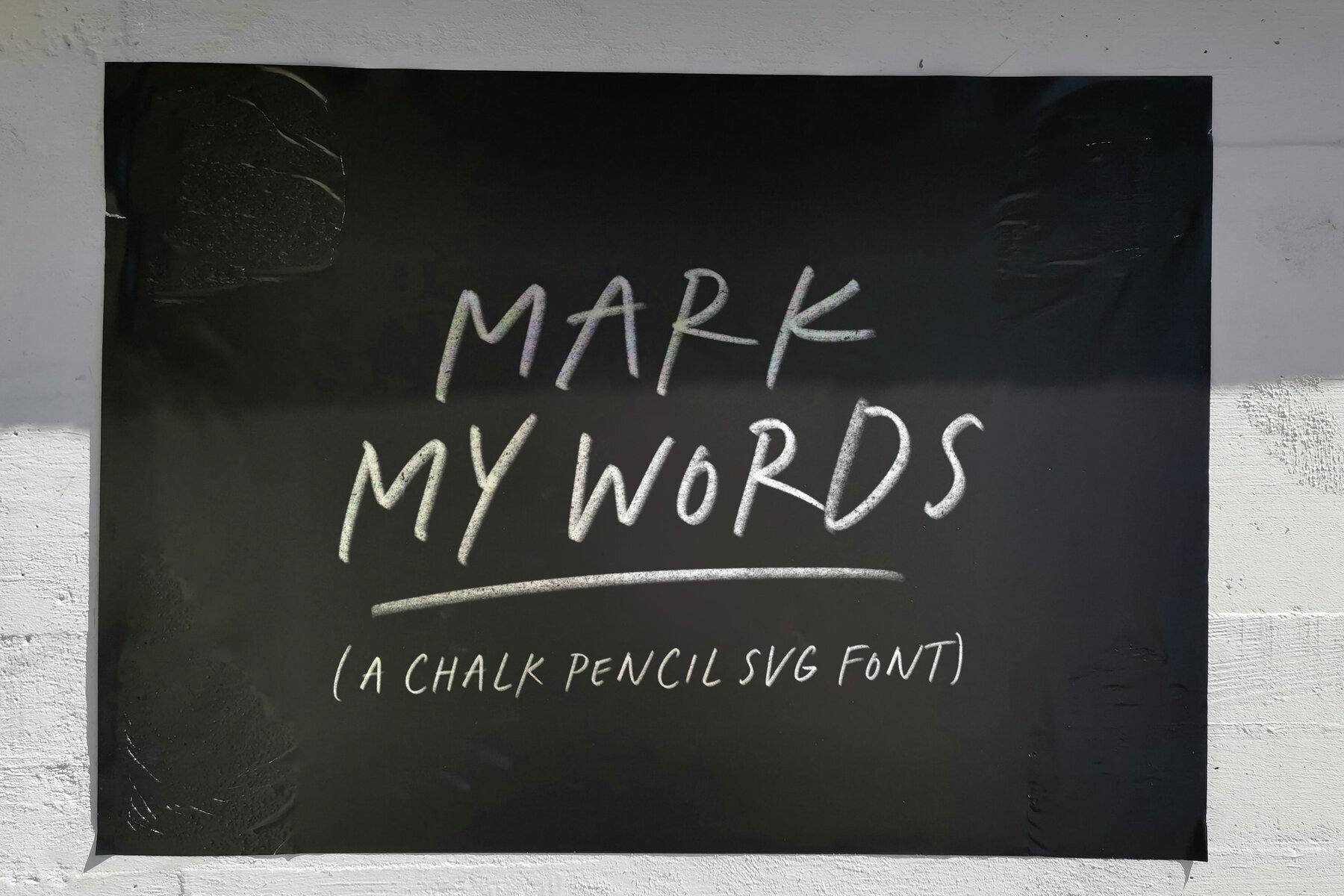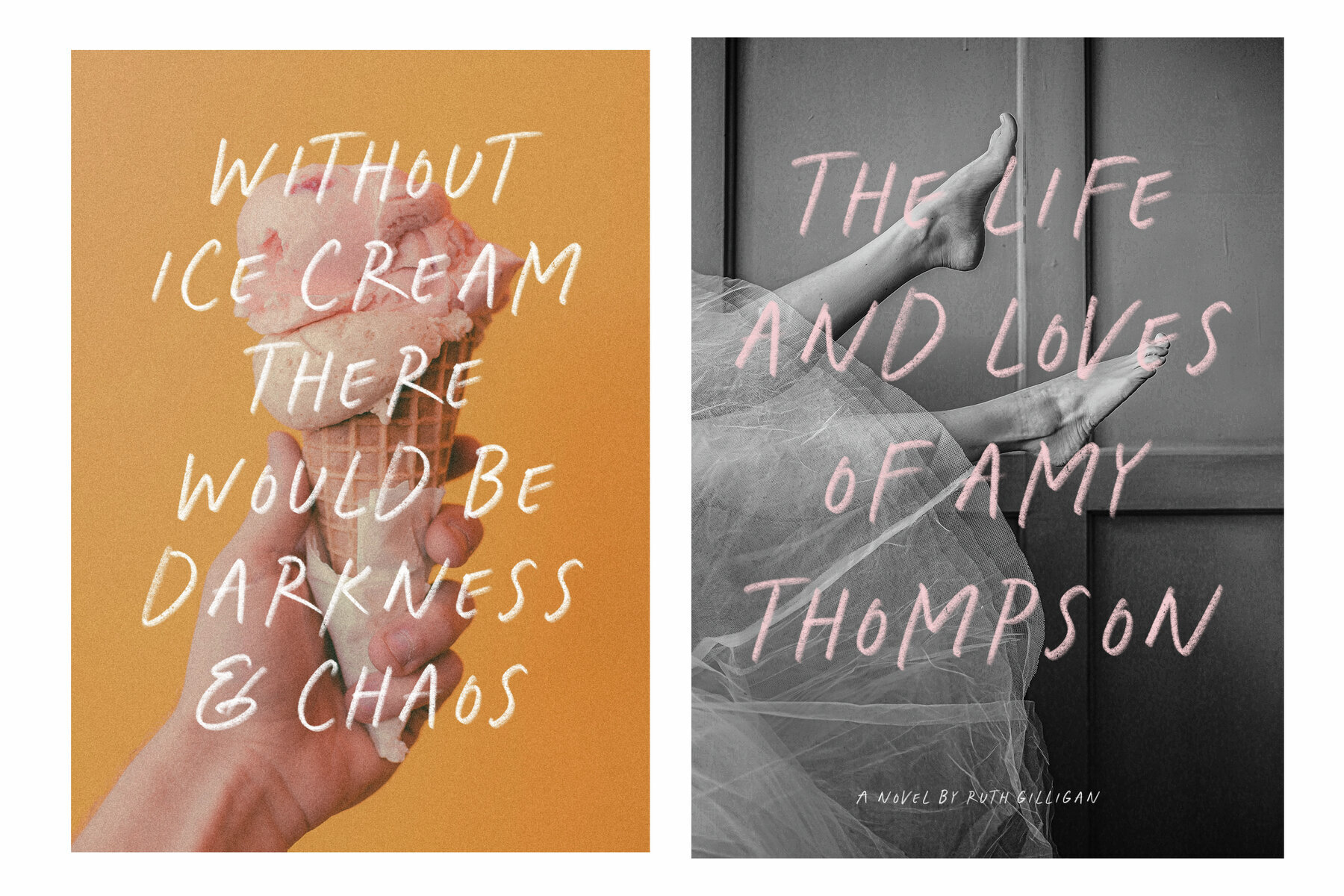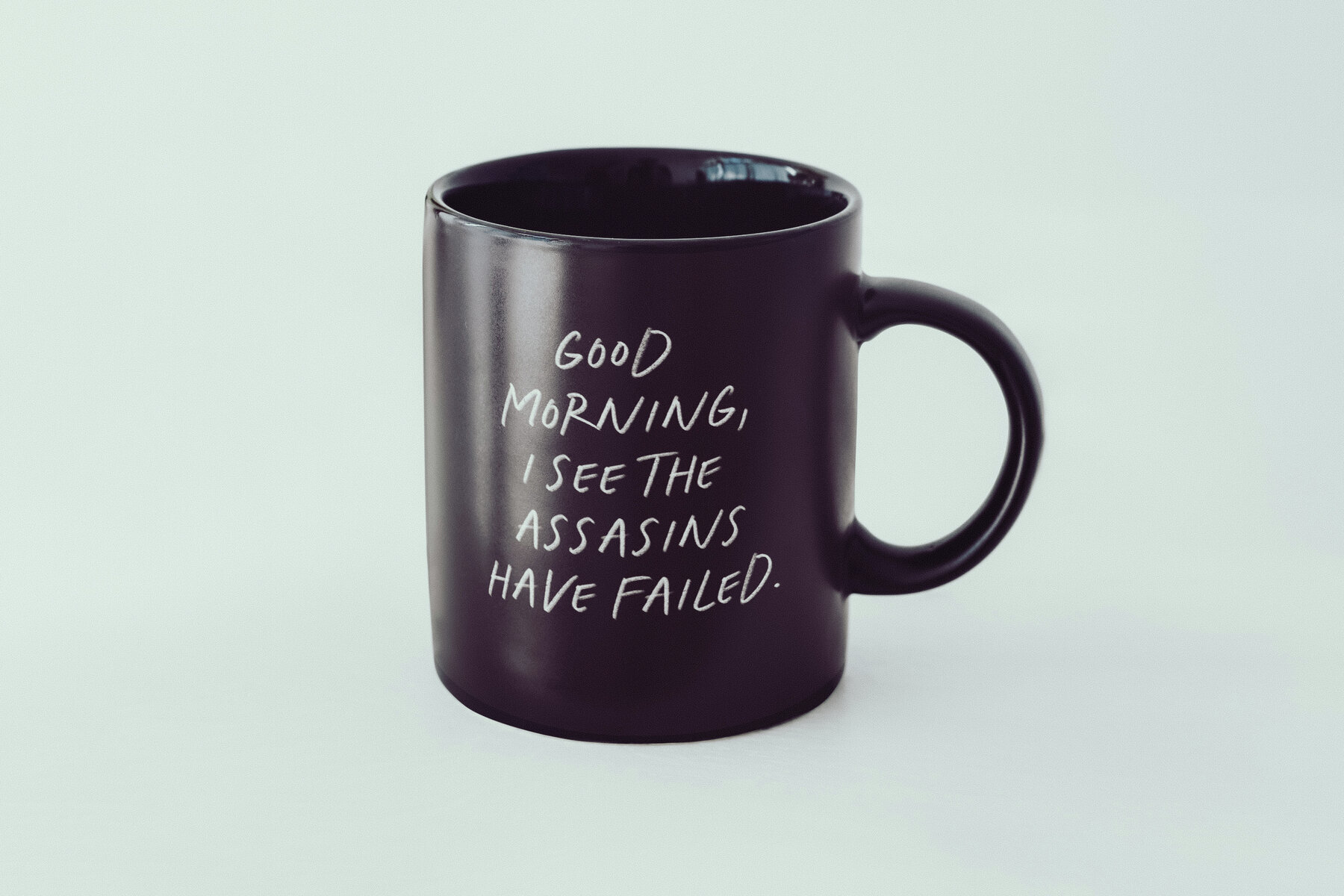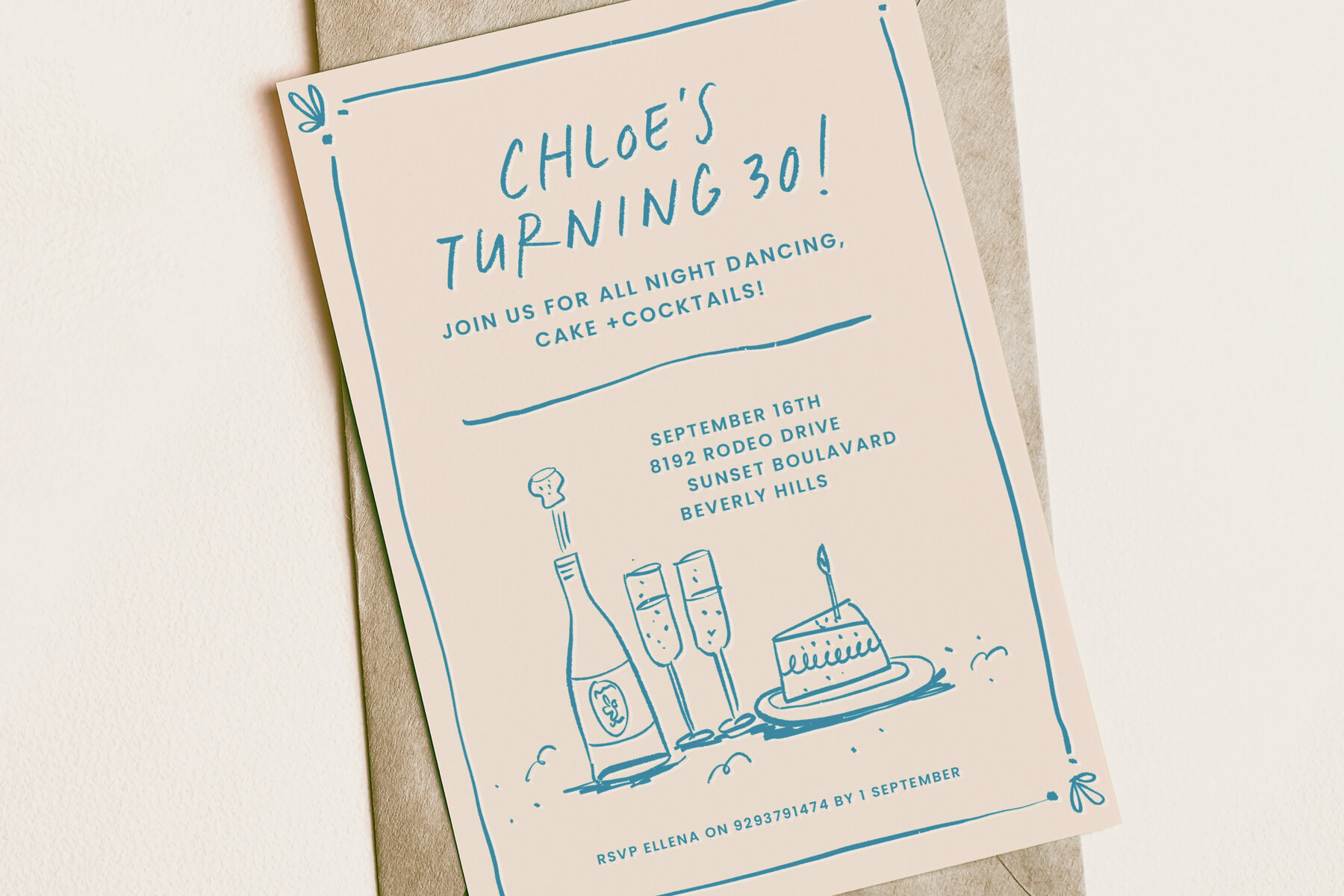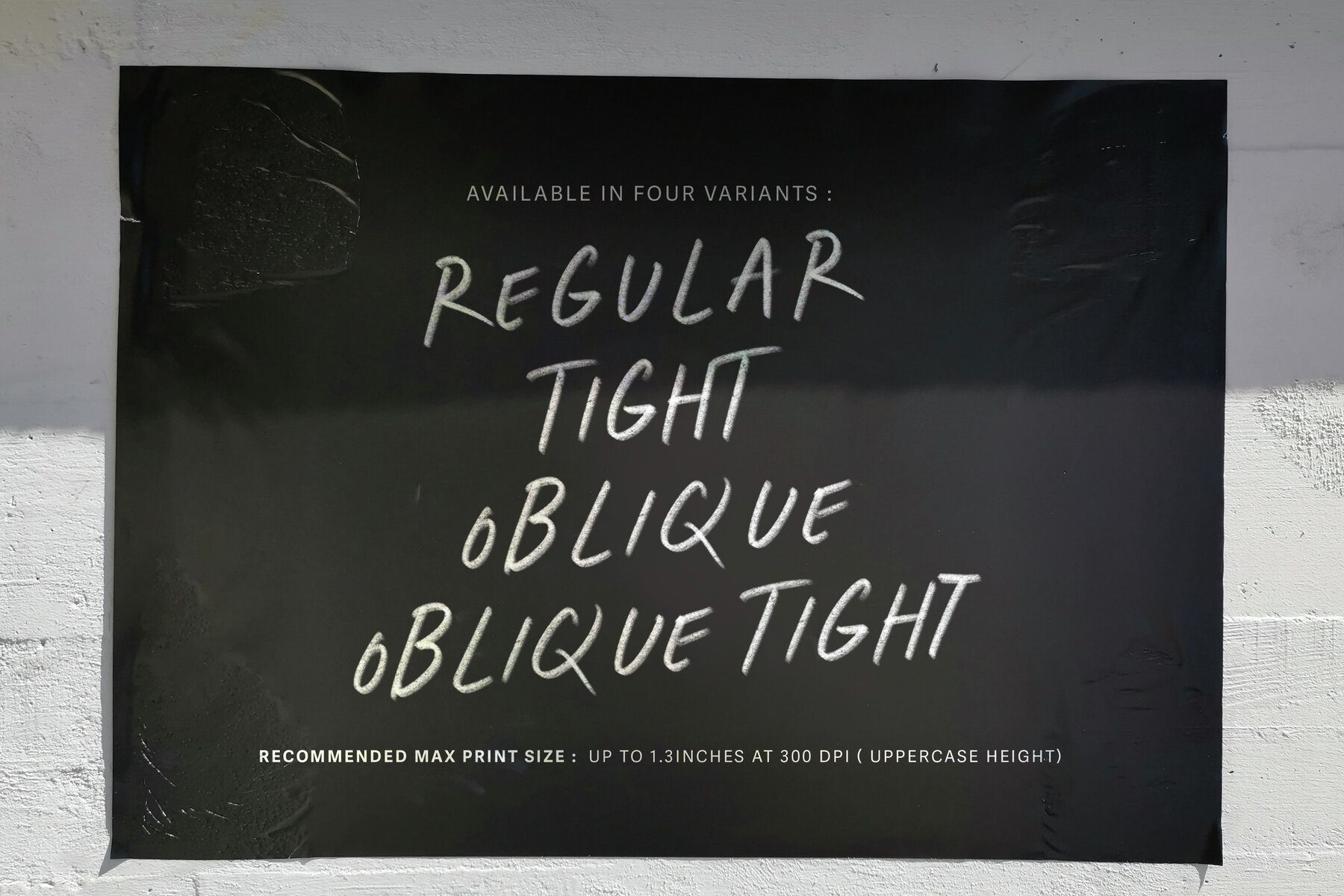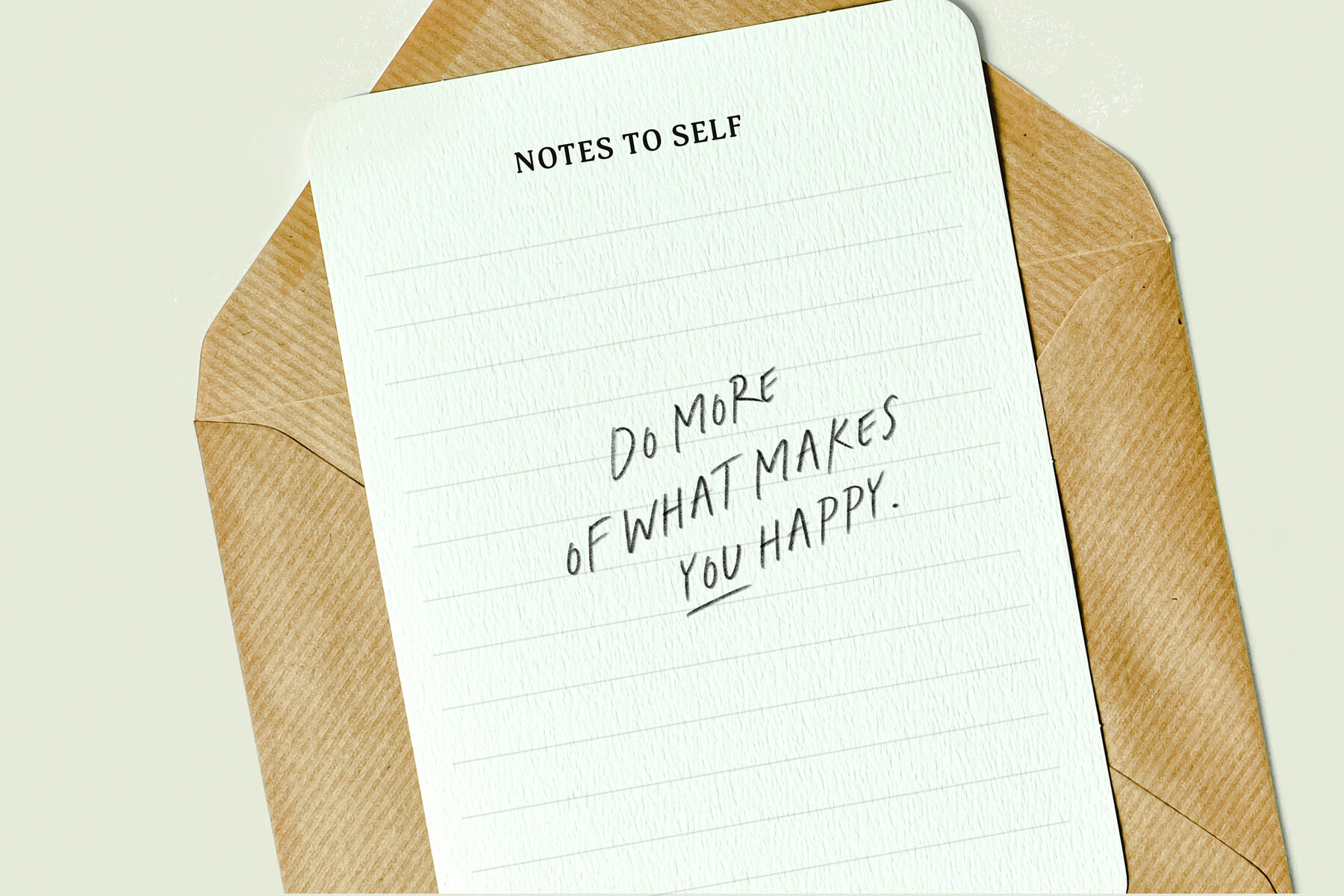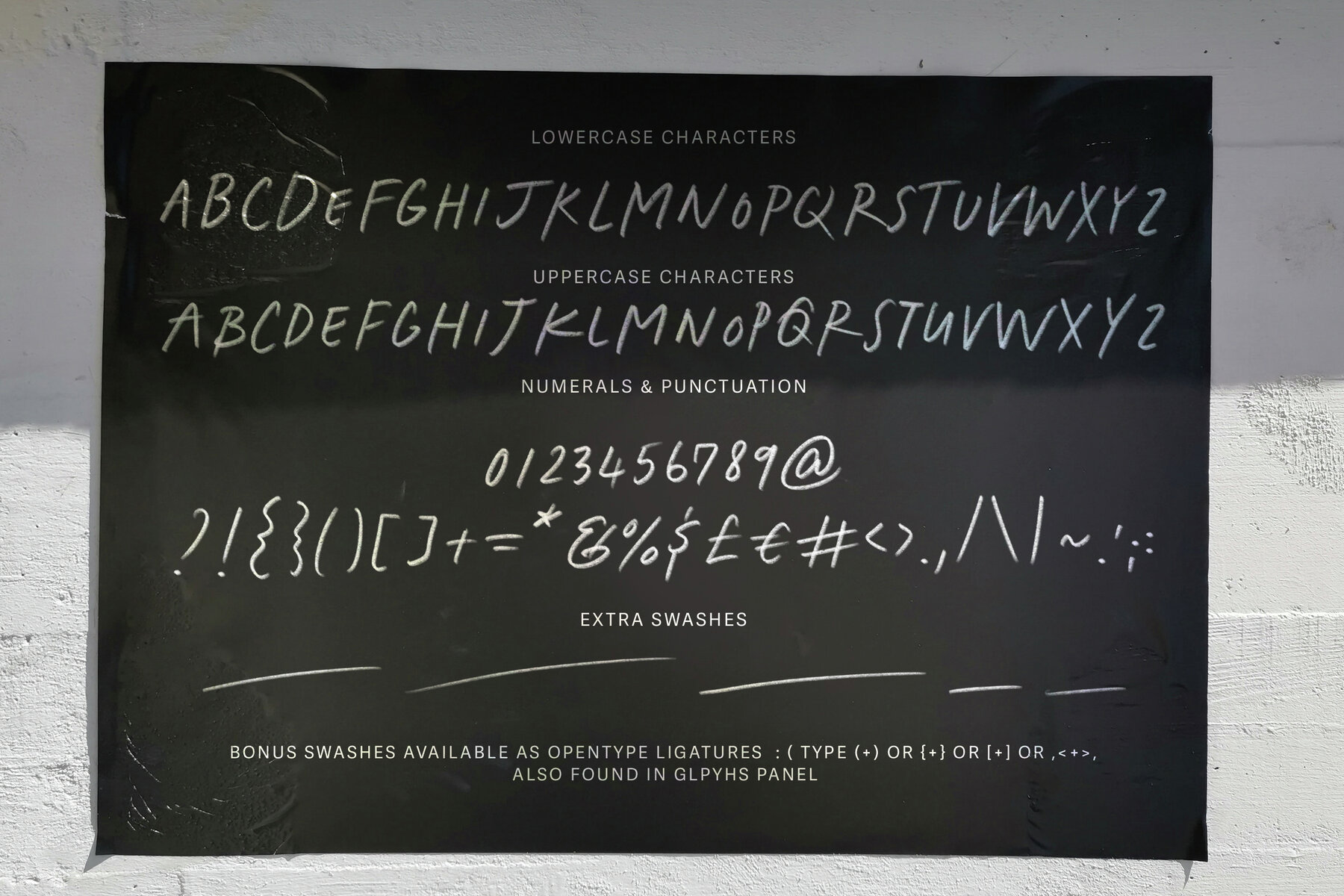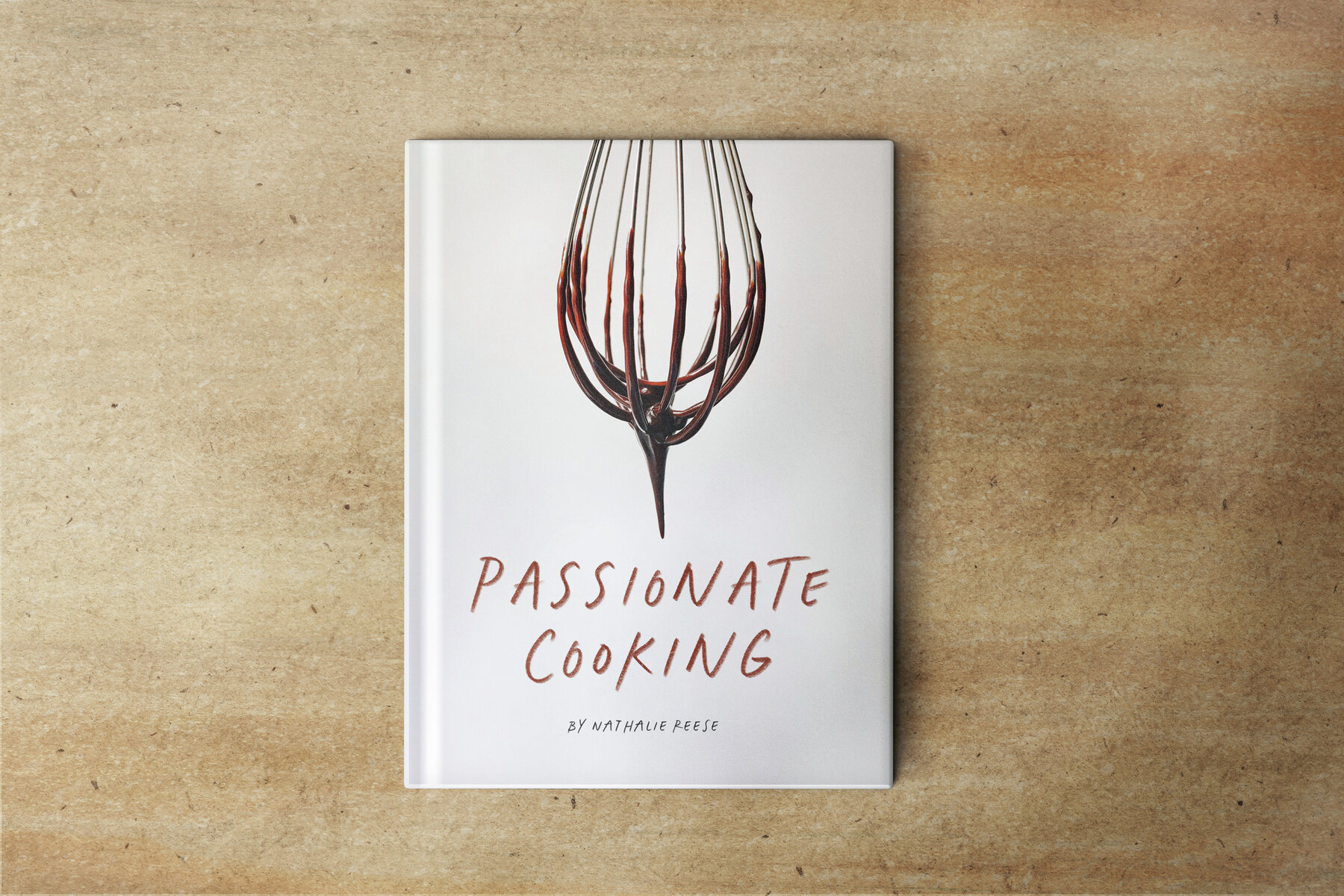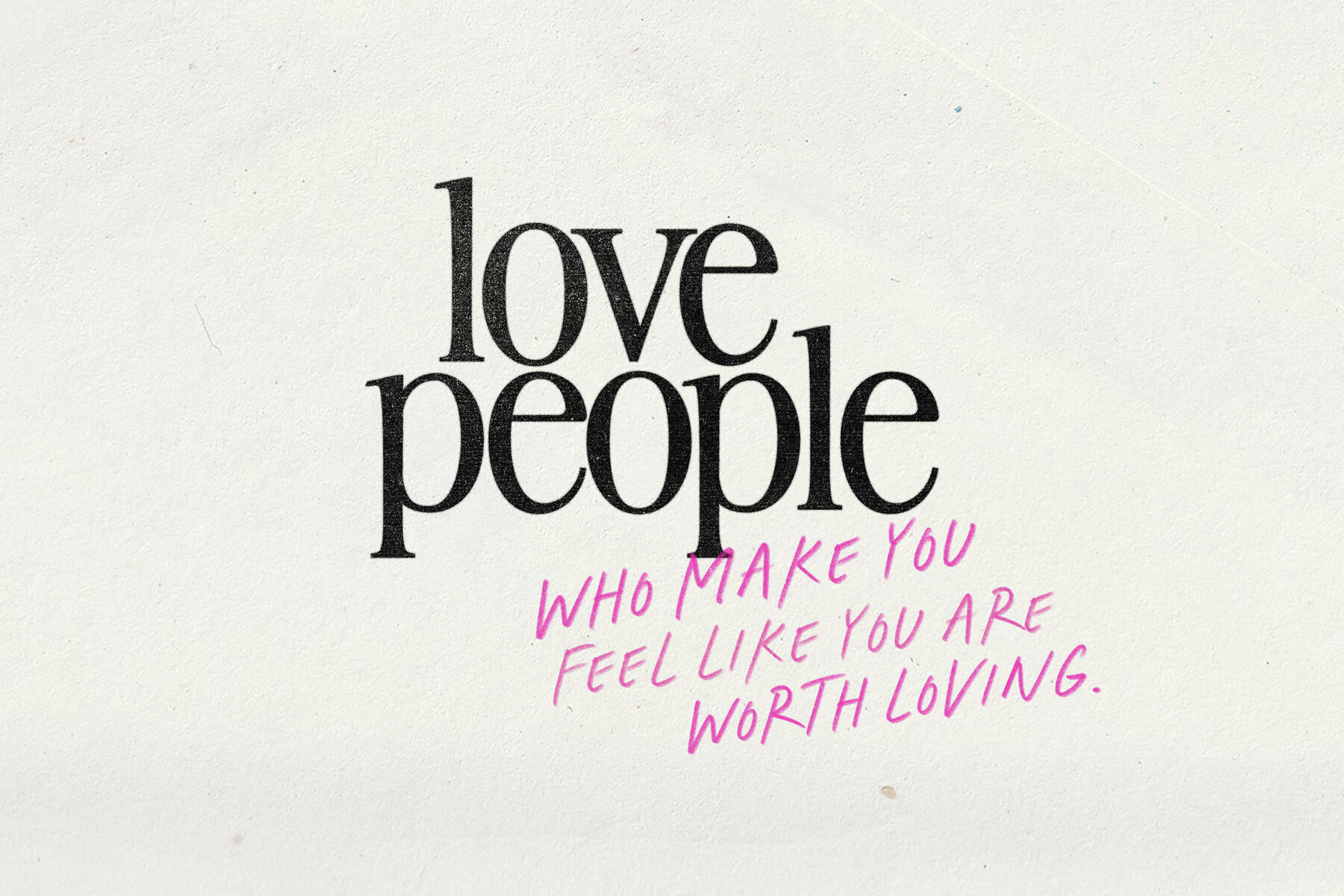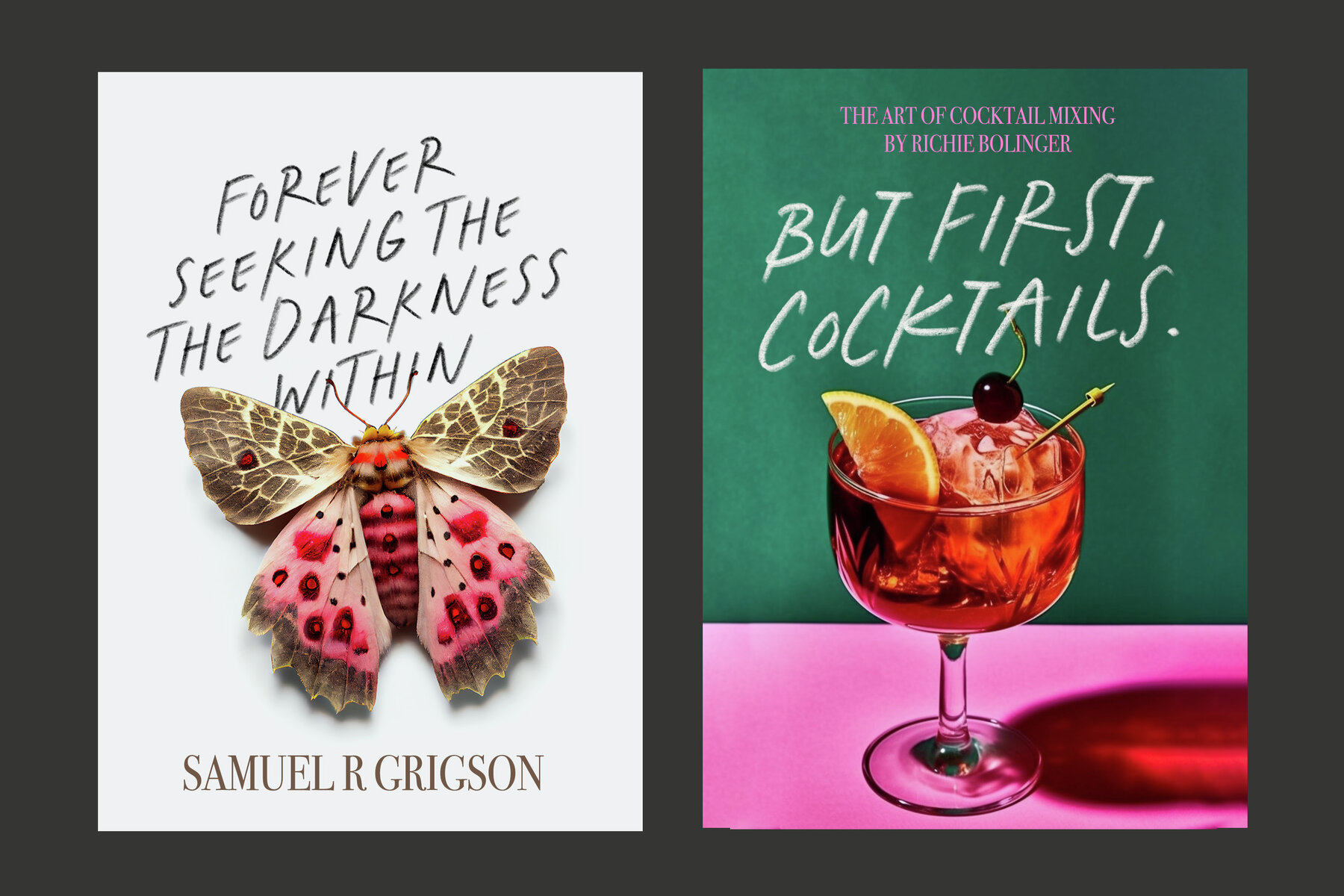
Mark My Words SVG Font
From the luxurious confines of the highly respected designer's studio, Nicky Laatz introduces us to the 'Mark My Words' SVG Font. This distinctive typographical marvel creates a seamless blend of playful flirtations and impactful dignity. Distinguished as an all-caps Pencil Bitmap SVG font, it infuses any project with an unignorable presence, carving a deep impression in the viewer's mind. Flawlessly tailored for graphic designers and marketing firms, the 'Mark My Words' font is the epitome of versatility. Crafted with four compelling variants - Regular, Oblique, Tight, and Oblique. This innovative font offers a myriad of possible applications, from the subtle refinement of corporate branding to the engaging quirk of creative design. Reach out and grasp the power to sculpt narratives, mold perceptions, and genuinely make your mark. Features of the 'Mark My Words' SVG Font:Mark My Words SVG Font by Nicky Laatz